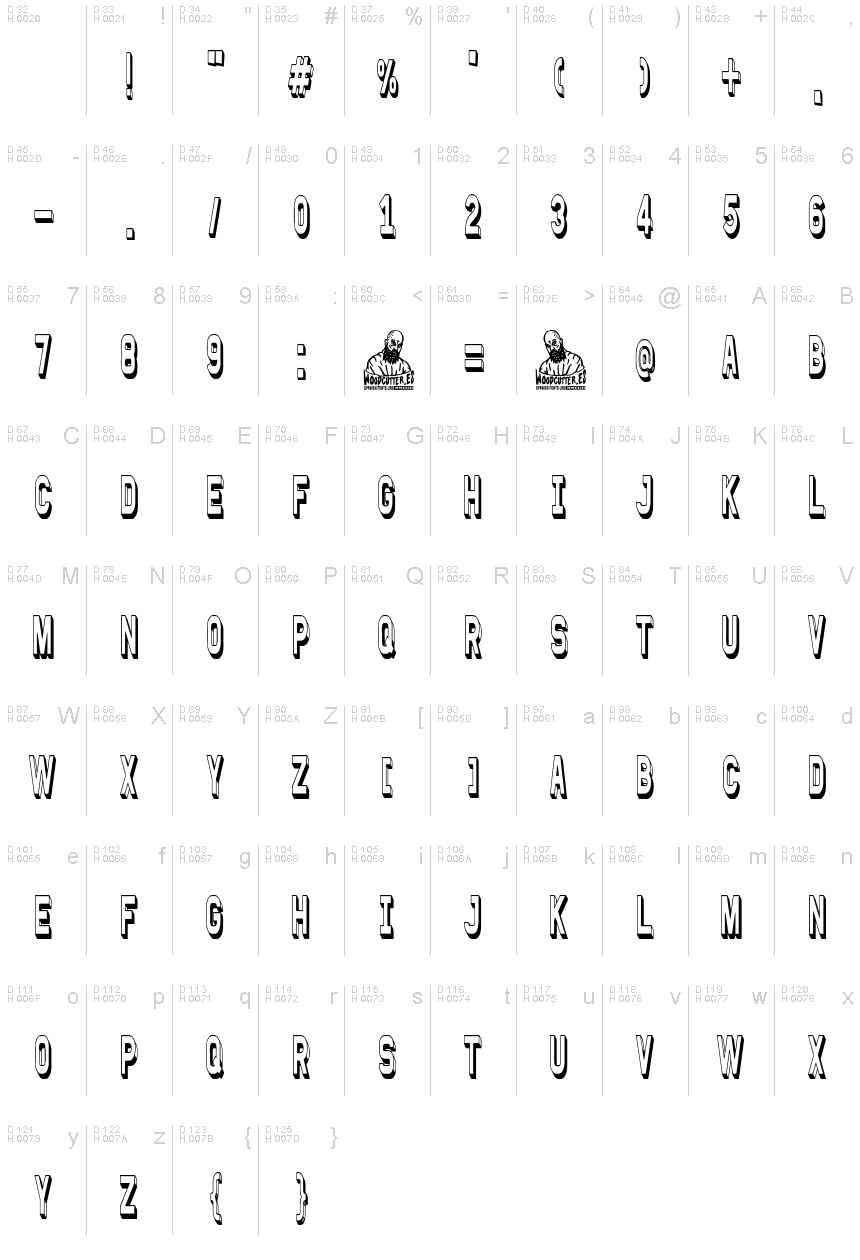
Retro Heaven
Retro Heaven font by Woodcutter is a bold, vintage-inspired display font that captivates with its impactful, dimensional appearance. A unique retro style is inspired by a mix of elements that are both modern and from the past. Its geometric shapes are condensed in width and decorated with 3D effects that make it stand out even more so.
Each individual character can be used on its own as an icon or for creating larger-scale invitations, flyers, brochures, product labels, menus, websites or printed publications. Posters and T-shirt designs will shine thanks to its hypnotic appeal while more entertaining projects like social media posts will also benefit from this free sans serif font.